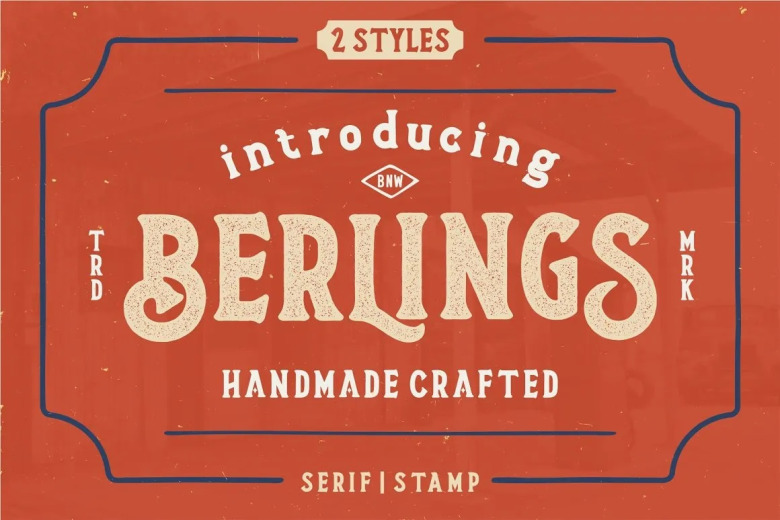
Berlings Font
Berlings is a vintage and condensed serif font great for any style of branding design related to the retro and the period-look trends. This point of view gets it the perfect alternative to your other creative designs.
Berlings Serif Font